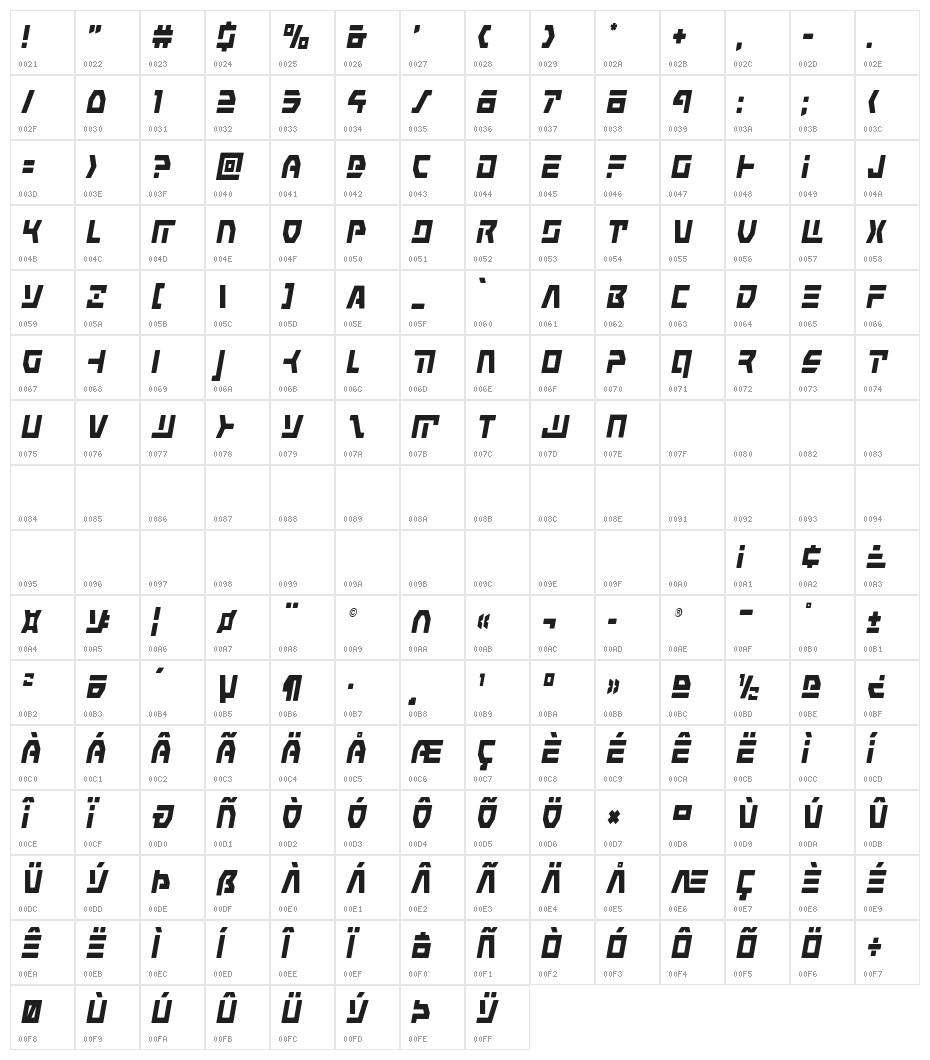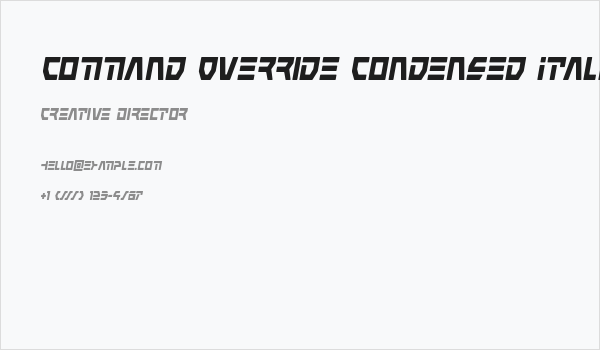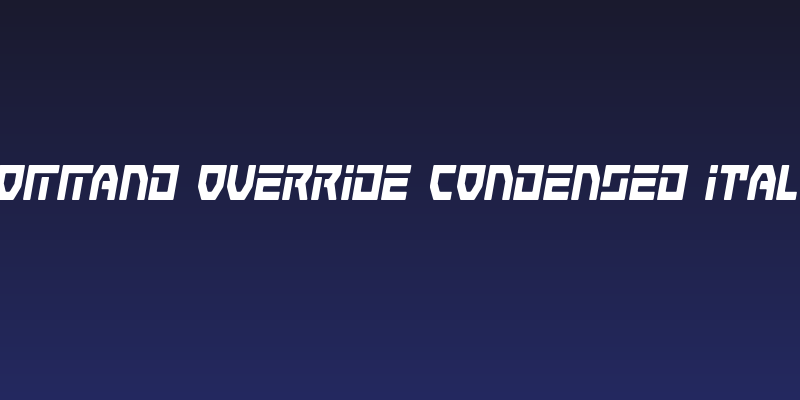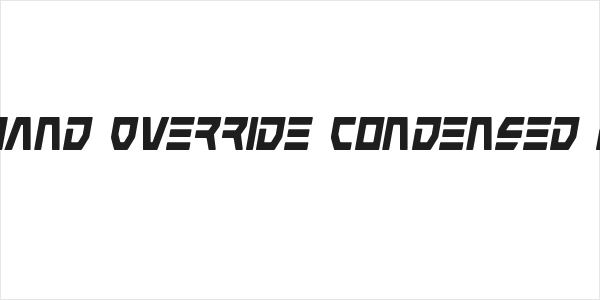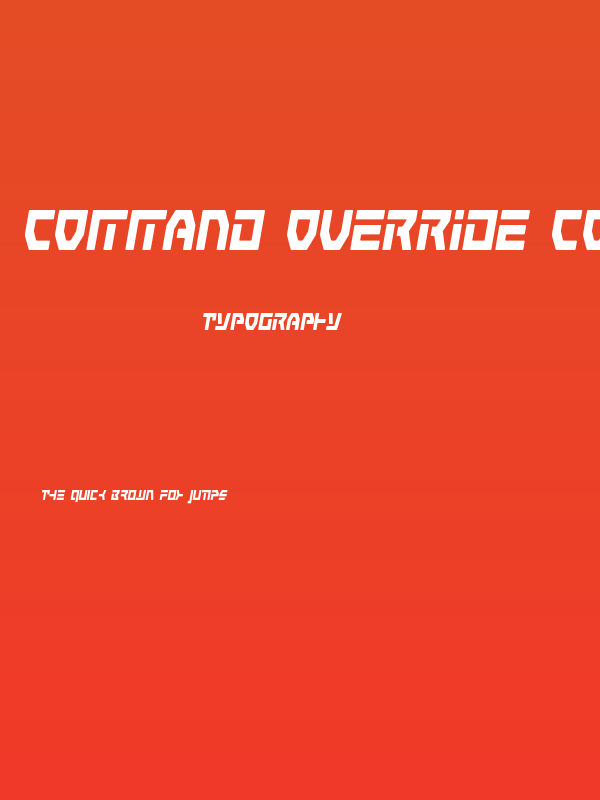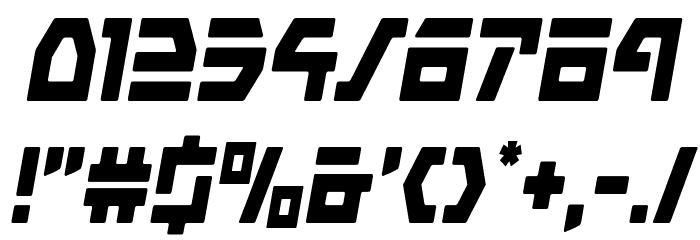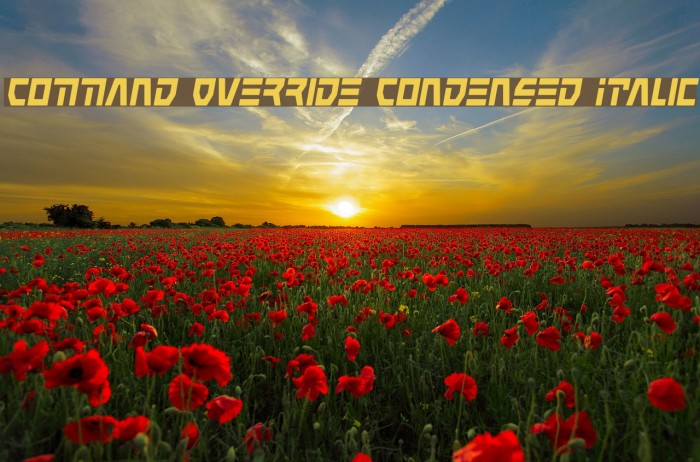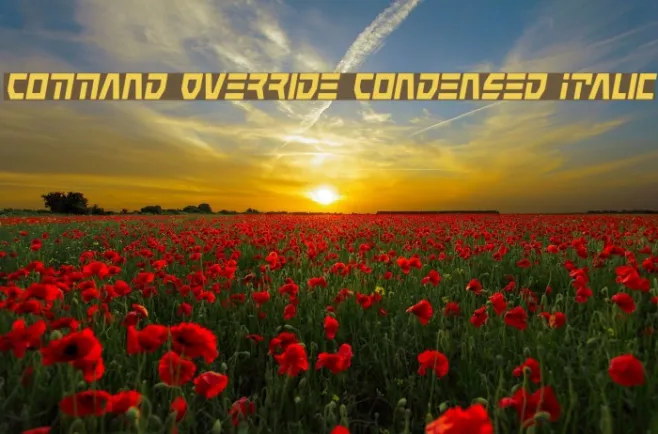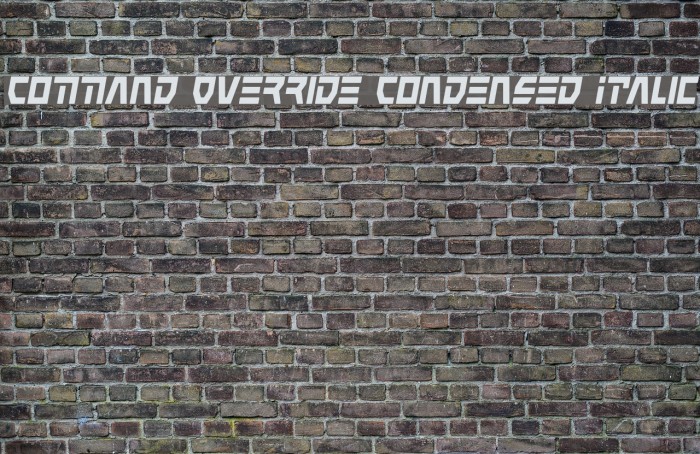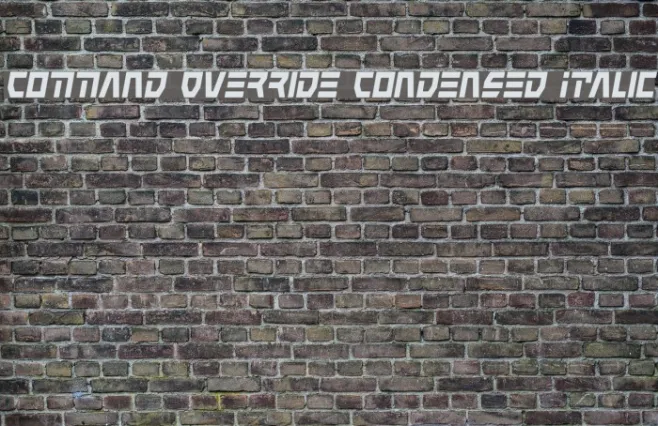
Command Override Condensed Italic Font
Command Override Condensed Italic Description
This font features a bold and futuristic design with a condensed and italicized style. The characters are angular and geometric, giving a sense of movement and speed. The uppercase letters are particularly striking, with sharp edges and a dynamic slant. The numbers and special characters maintain the same bold and angular aesthetic, ensuring consistency across all glyphs. This font is ideal for projects that require a modern and edgy look, such as technology branding, sports team logos, or sci-fi themed designs.
| Proposed Projects | Ideal for technology branding, sports team logos, sci-fi themed designs, and dynamic posters. |